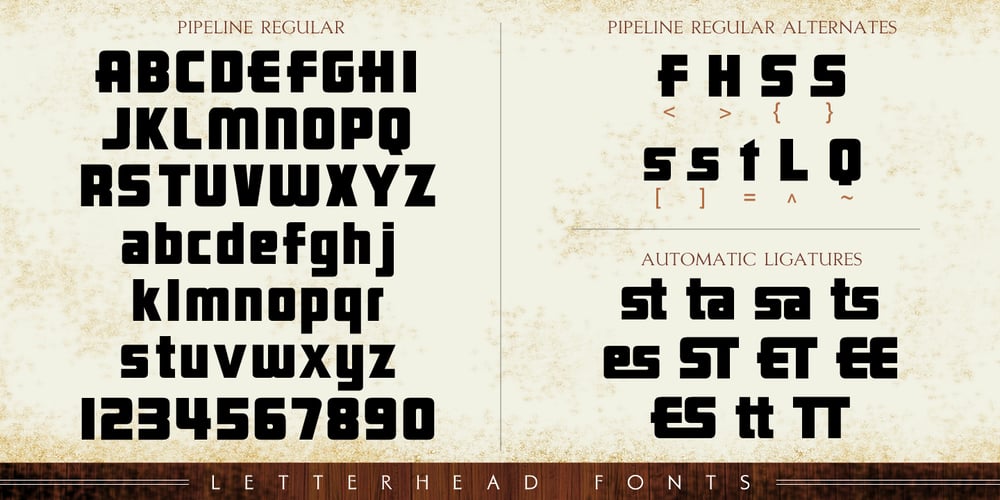
LHF Pipeline Font Family was designed by John Davis and published by Letterhead Fonts. LHF Pipeline contains 2 styles and family package options. Inspired by Alf Becker, this font includes two versions: Regular and Inline. Large lowercase letters ensure easy readability. Perfect for modern designs.